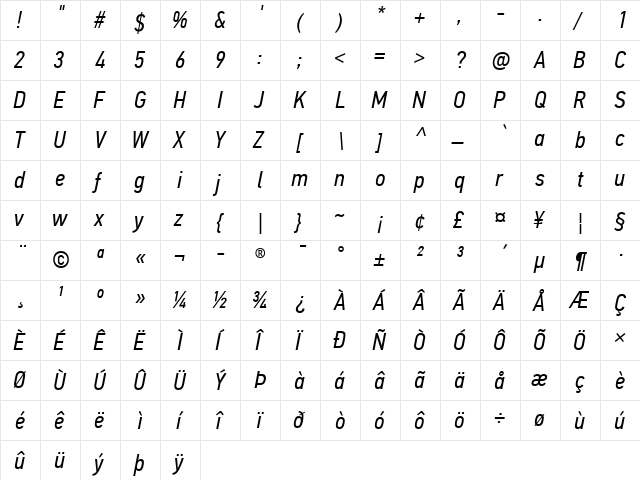
PF Din Text Cond Pro Italic Font Preview
| Foundry | Parachute蠗orldwide |
| Designer | Panos Vassiliou |
Design Context for PF Din Text Cond Pro Typeface
PF Din Text Cond Pro takes a measured approach to typography — its balanced proportions and neutral character make it a reliable workhorse for both digital and print work. The dynamic lean of this cut emphasises speed and emphasis in any layout. The condensed width makes it efficient for tight spaces without sacrificing legibility.